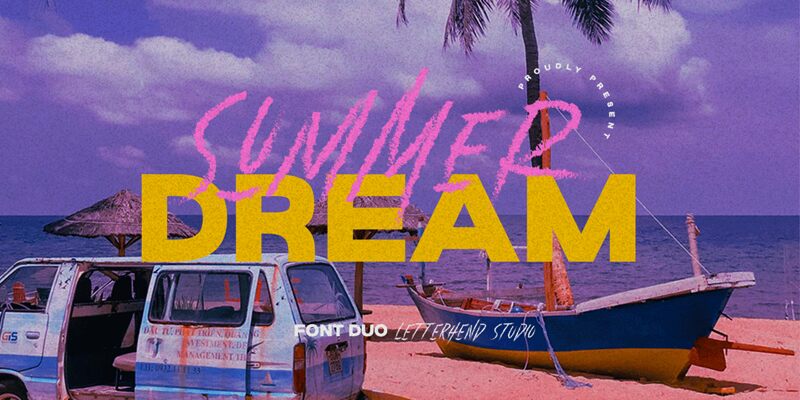
Summer Dream Brush font, designed by Letterhend Studio, radiates a vibrant, artistic flair that captivates with its brush-inspired strokes. The condensed design creates an elegant yet dynamic presence, allowing text to convey energy and creativity effortlessly. Each letter flows with a delightful rhythm, evoking the spontaneity of handwritten artistry.
Visually striking, the font's textured appearance adds depth and character, making it ideal for projects that require an informal yet sophisticated touch. This unique style shines in branding materials, social media graphics, and invitations where a personal feel is essential. Perfect for capturing attention without overwhelming the viewer, Summer Dream Brush seamlessly enhances any design context with its expressive charm and modern appeal.